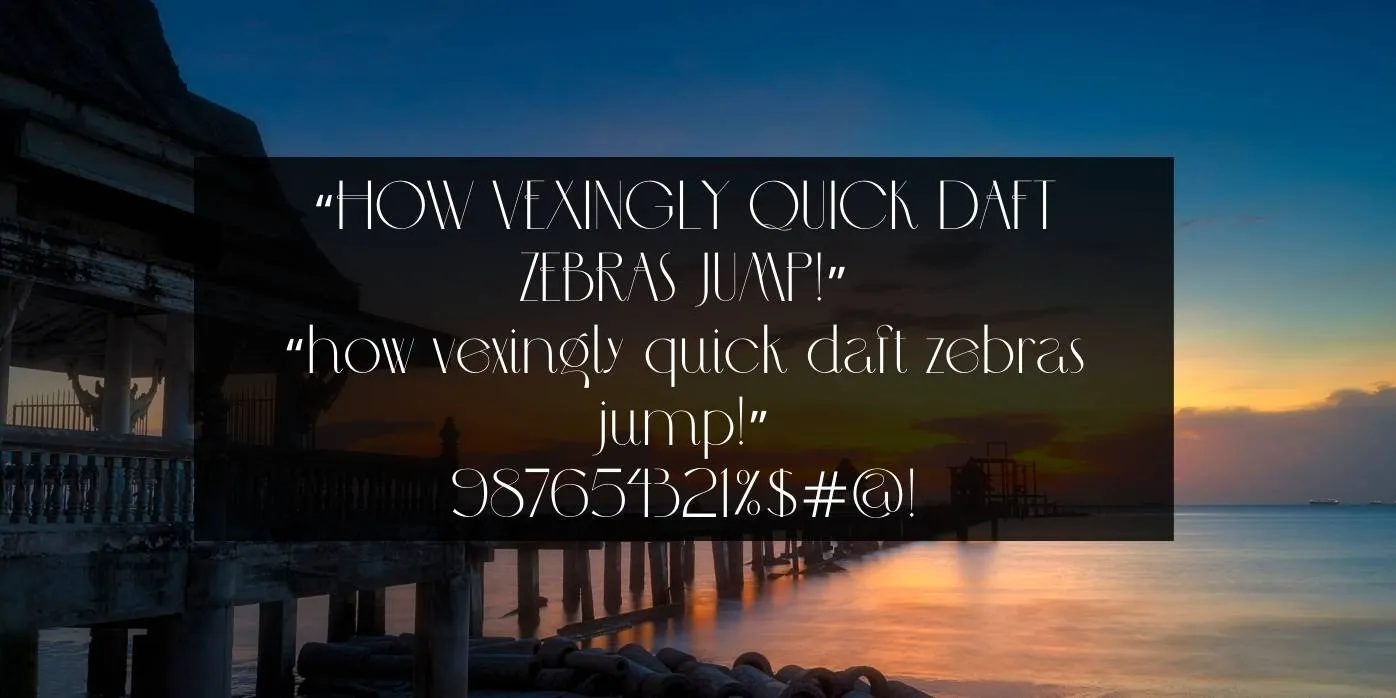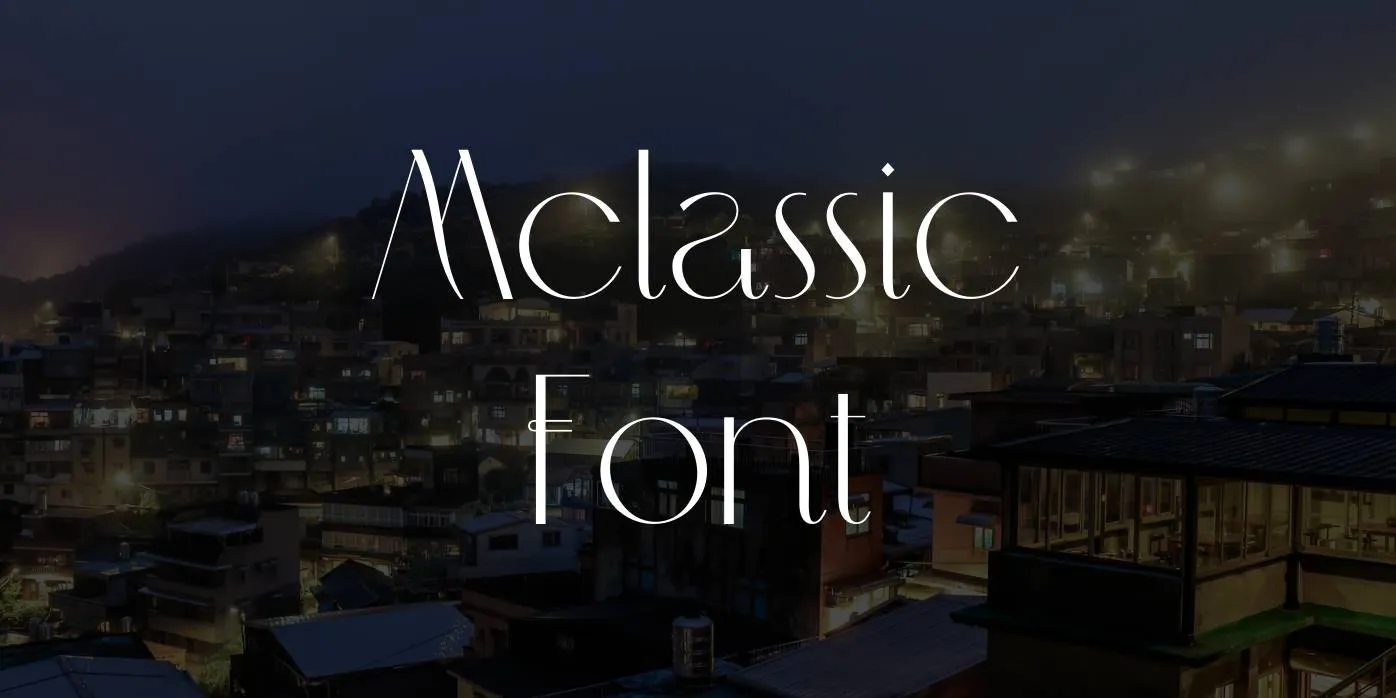
Mclassic Font
Here, we present a stylish typeface named Mclassic Font. This staggering typeface belongs to the fancy font family. It was developed and shared by 177 studios. This font is a great choice for those who are looking for a unique and elegant font.
It features thin and tall letters with long tails. The M in this font looks like two arrows pointing in opposite directions. This font also includes a few alternative characters. This typeface is perfect for branding, headlines, and other creative designs.
It is available in both uppercase and lowercase letters. You can also use dragonball z font for more designs. You can use it for both personal and commercial purposes. Because of its support for all international languages, this typeface is used for various projects.